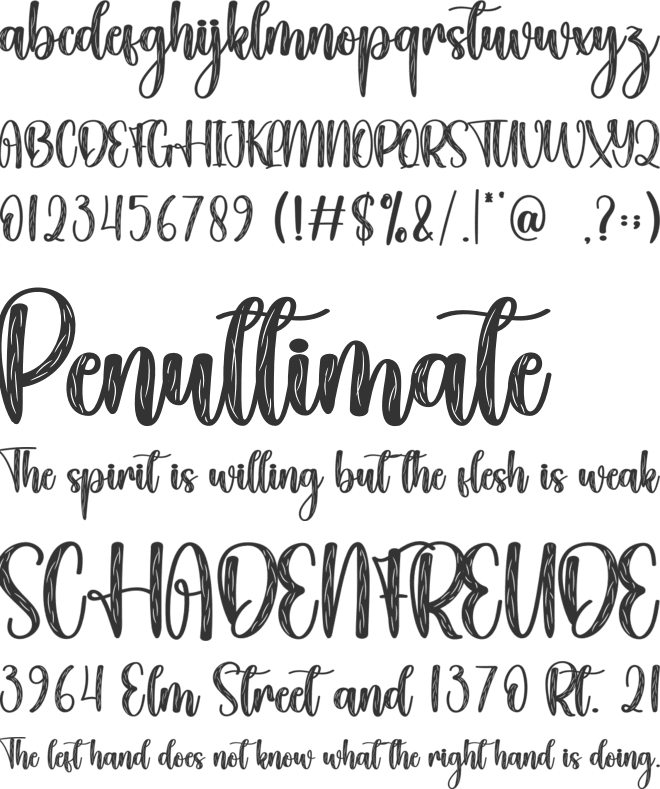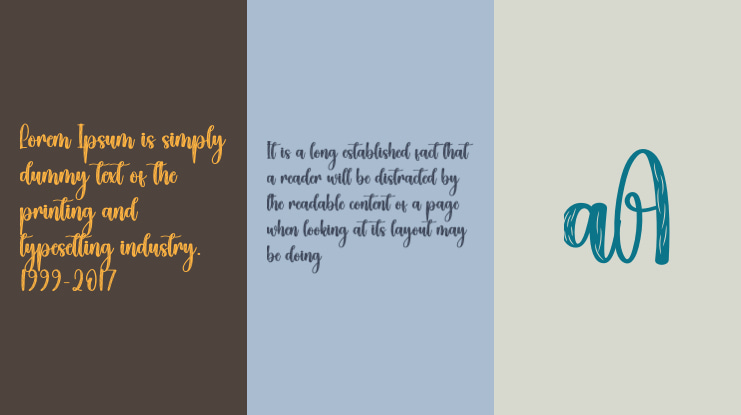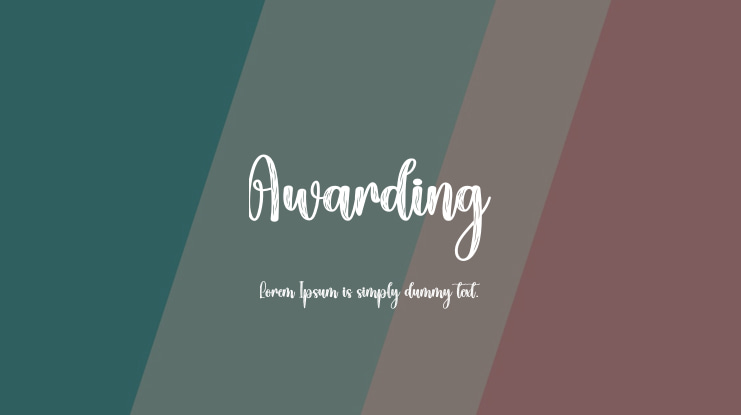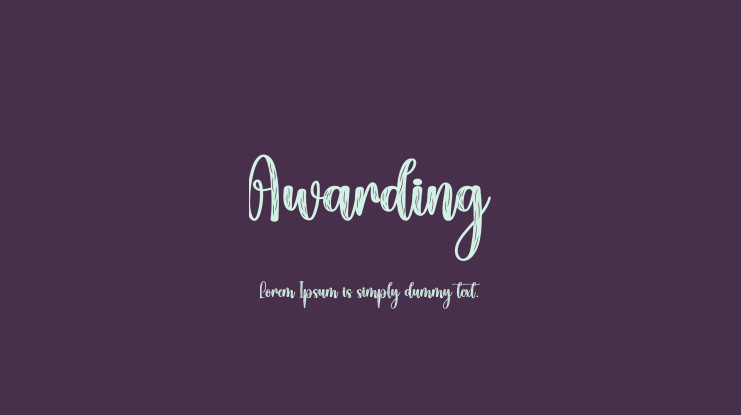
Awarding Font
The latest style of letters is perfect for various uses, including wall displays, wedding invitations, social media post logos, advertisements, product packaging, product designs, labels, photography, watermarks, invitations, stationery, or any project requiring tasteful handwriting.